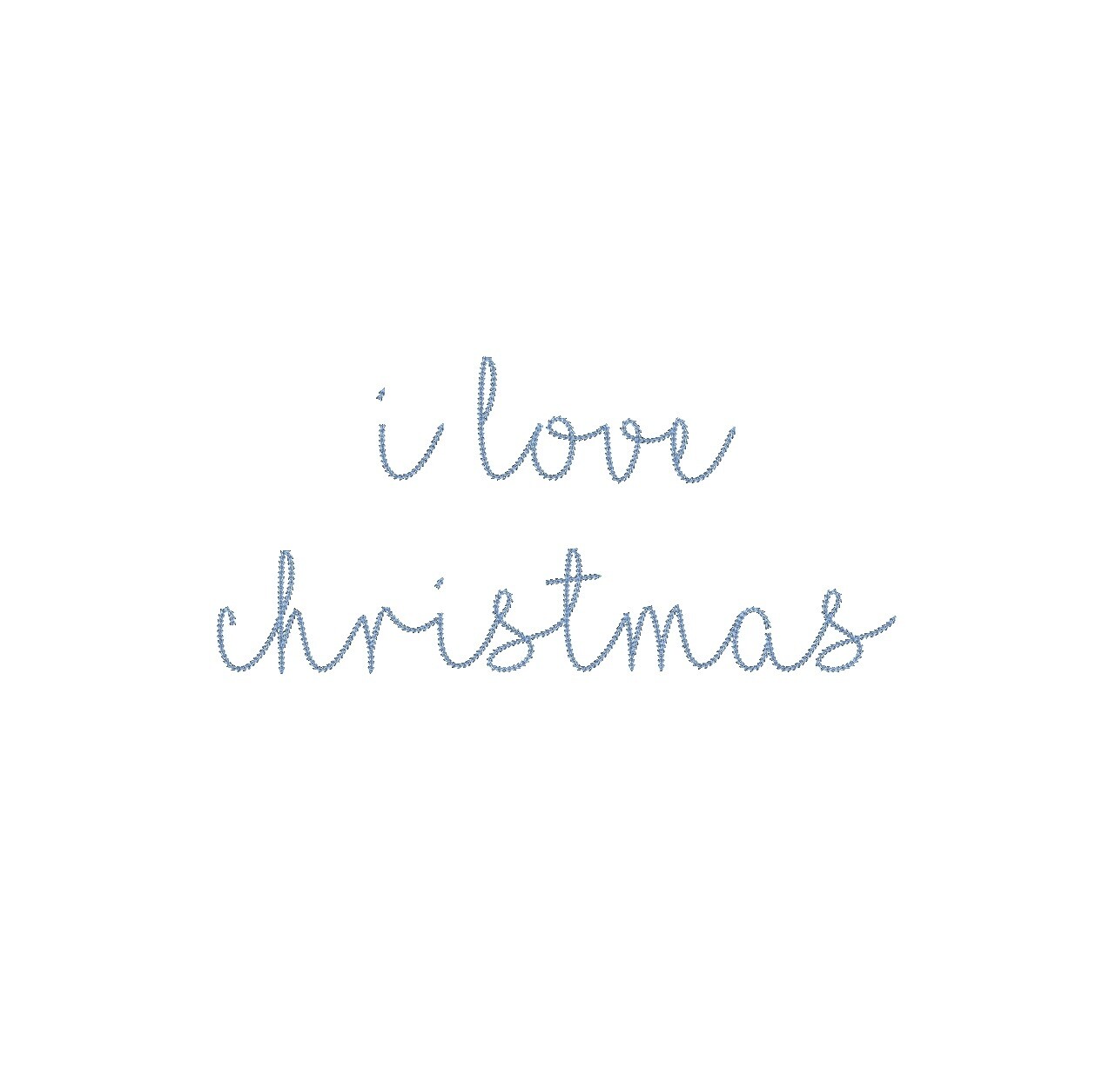
Elevate your embroidery with the I Love Christmas Chain Stitch ESA font. Perfectly compatible with Wilcom Studio e4.5.6 and Hatch 3 versions and newer, it infuses festive joy into your designs. Meticulously crafted, the font's chain stitch artistry adds depth and allure to every holiday project. Seamlessly integrate for captivating results that stand out. I Love Christmas transforms fabric into a canvas of yuletide creativity, enhancing your creations with cheerful charm. Elevate your embroidery with this seamless blend of technology and artistry. Experience the magic of I Love Christmas Chain Stitch ESA font to redefine holiday stitching excellence. Upgrade your designs today for seasonal impact.